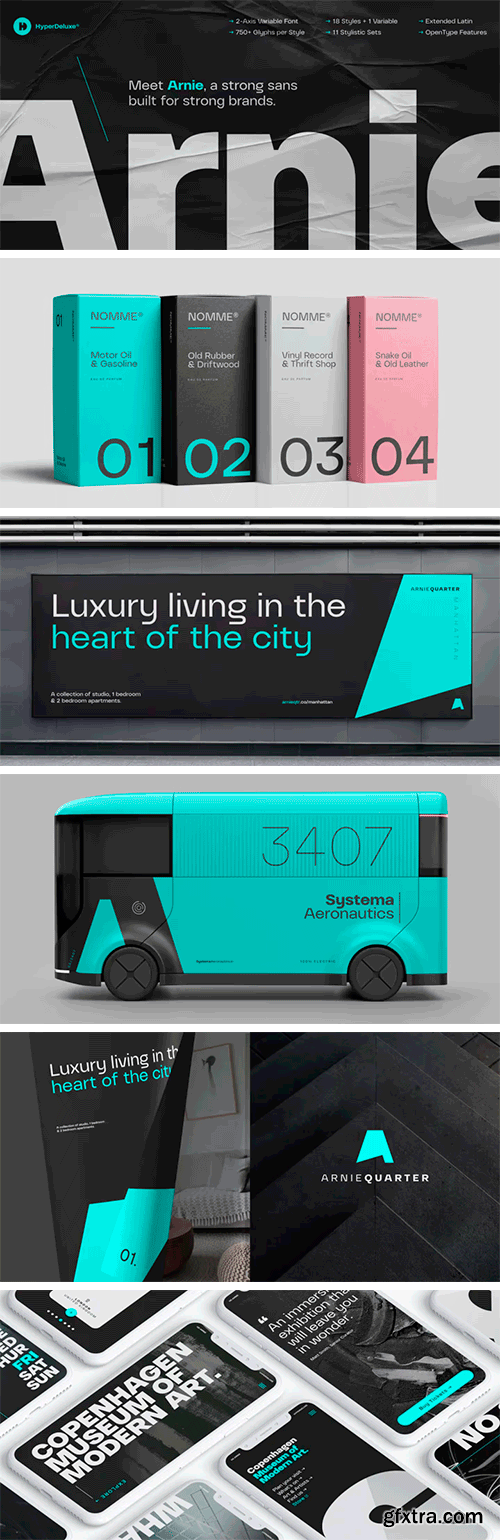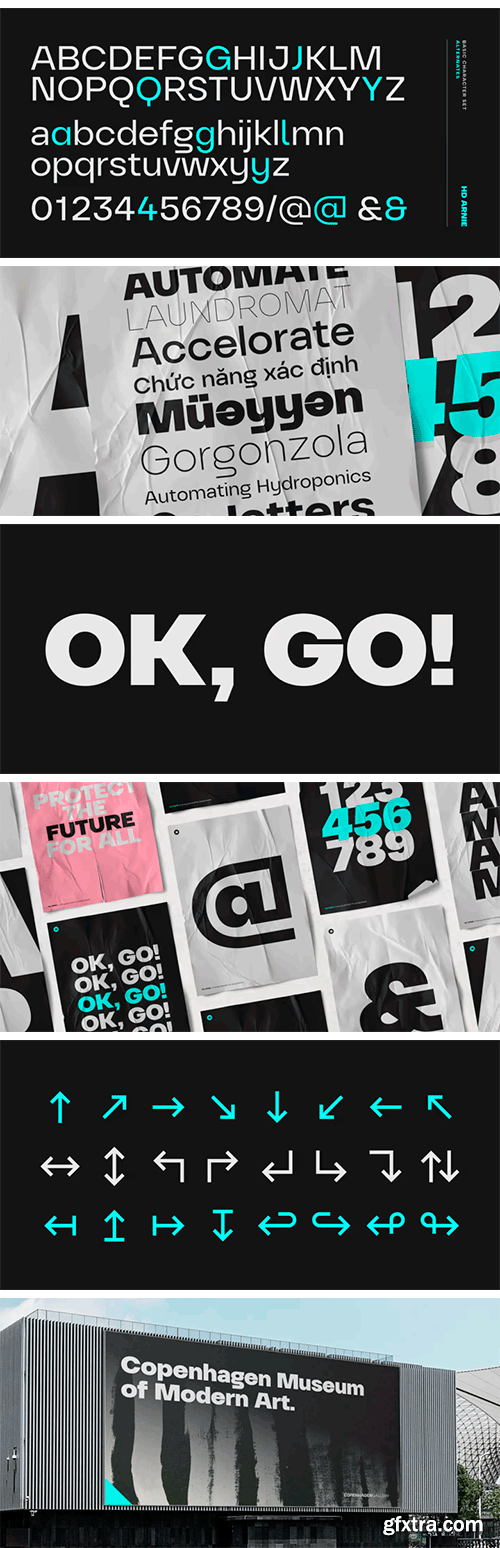
HD ARNIE is a unique little typeface. It has a combination of brutalist angles mixed with soft shapes and ink traps to create a truly unique viewing experience. The many alternates give you the flexibility and customisation to treat ARNIE as you wish and create a combination just right for you & your brand.